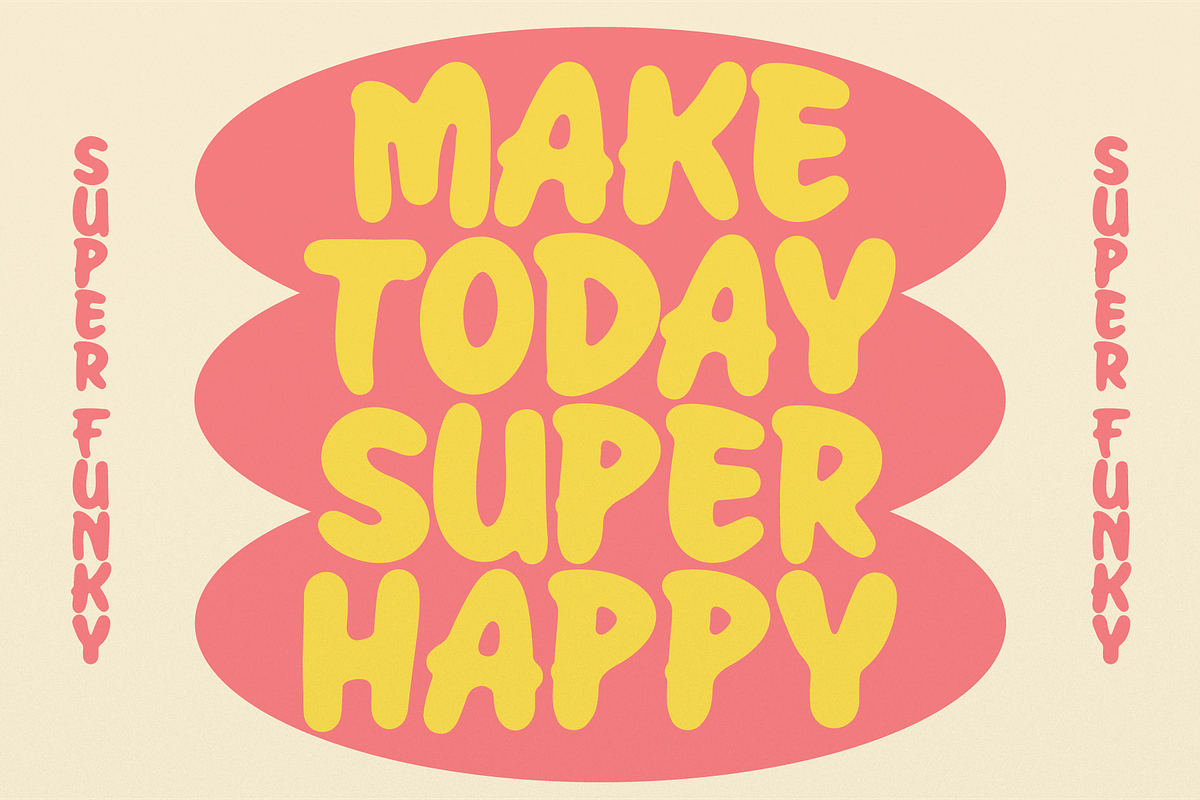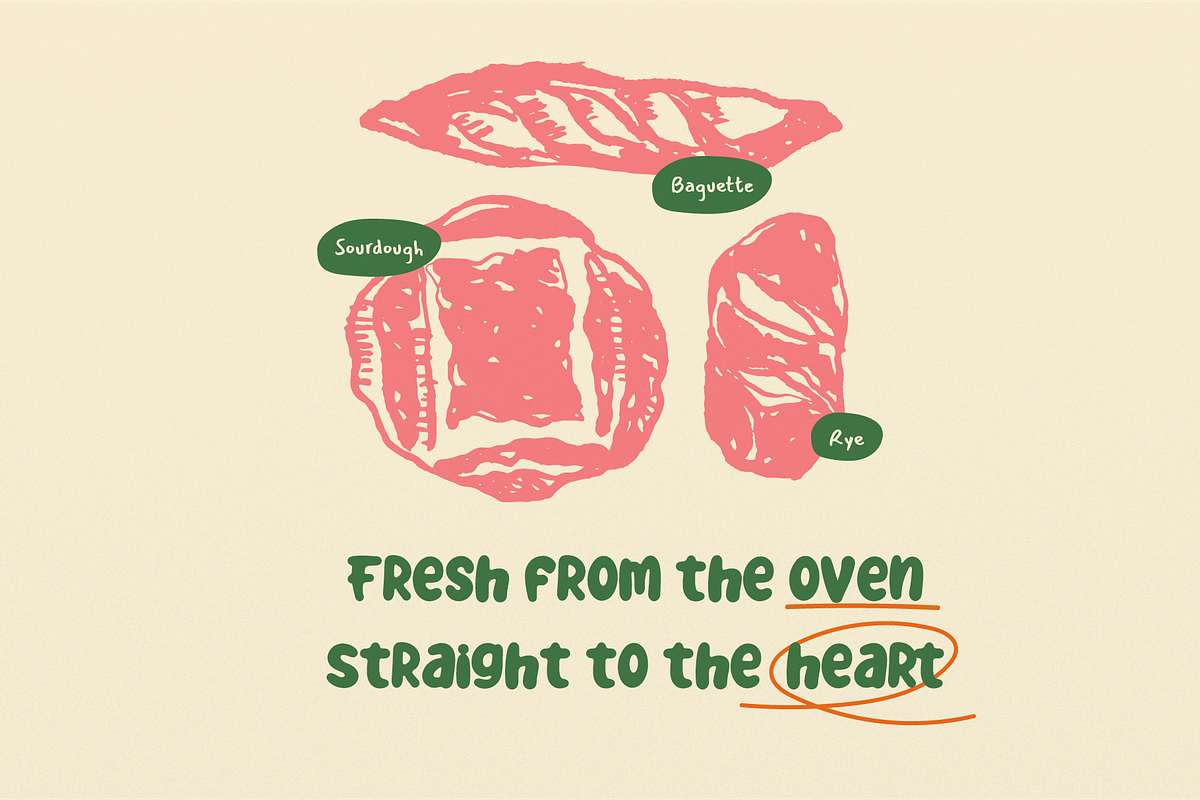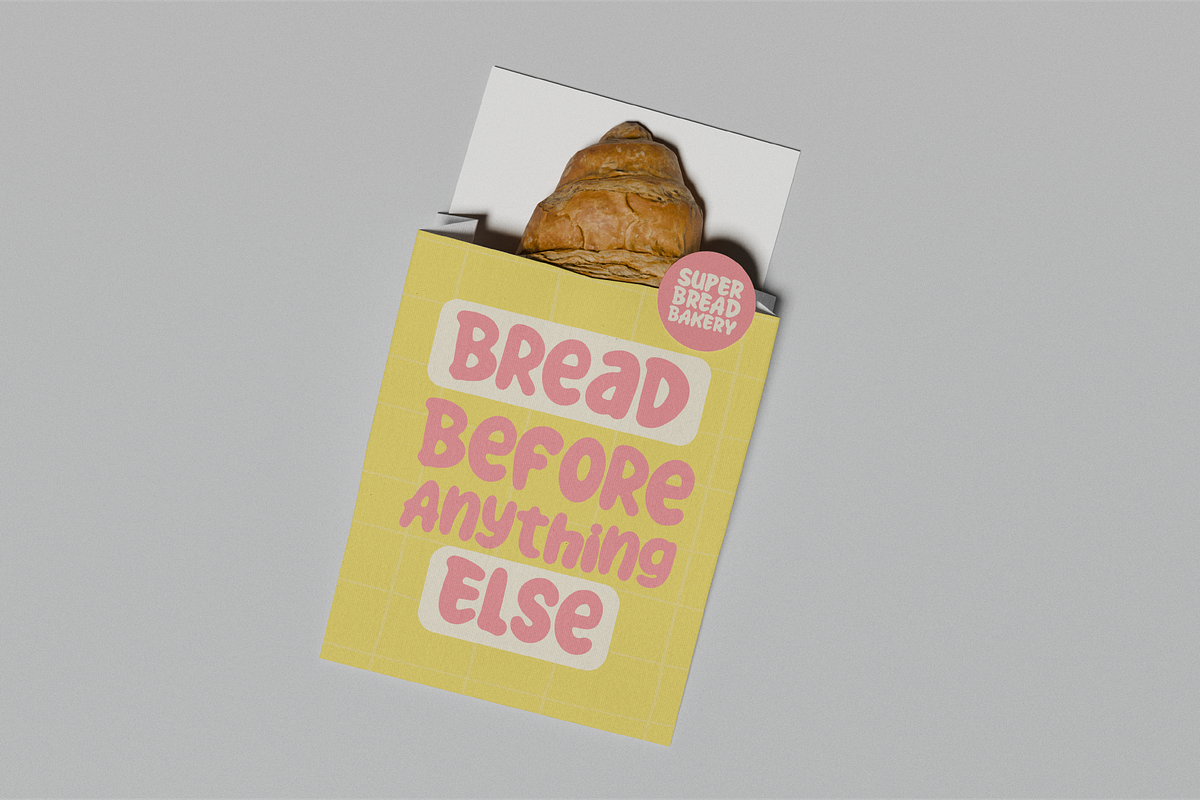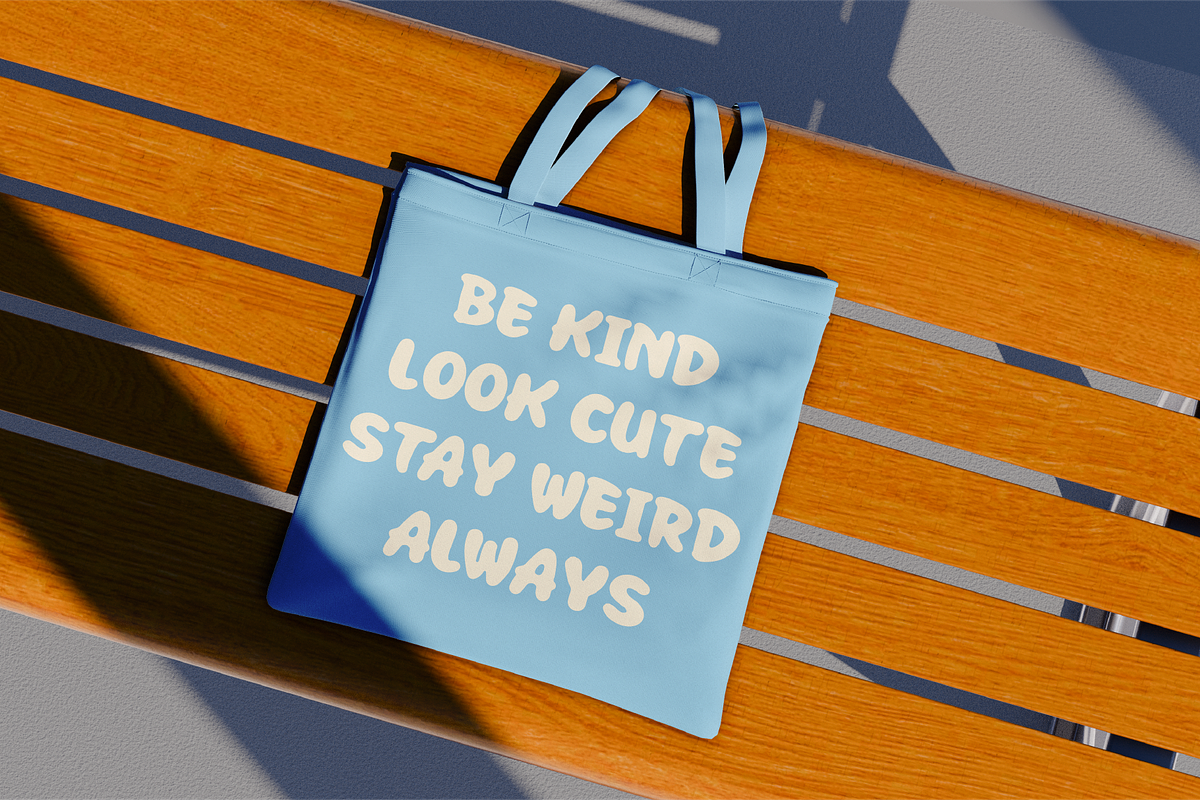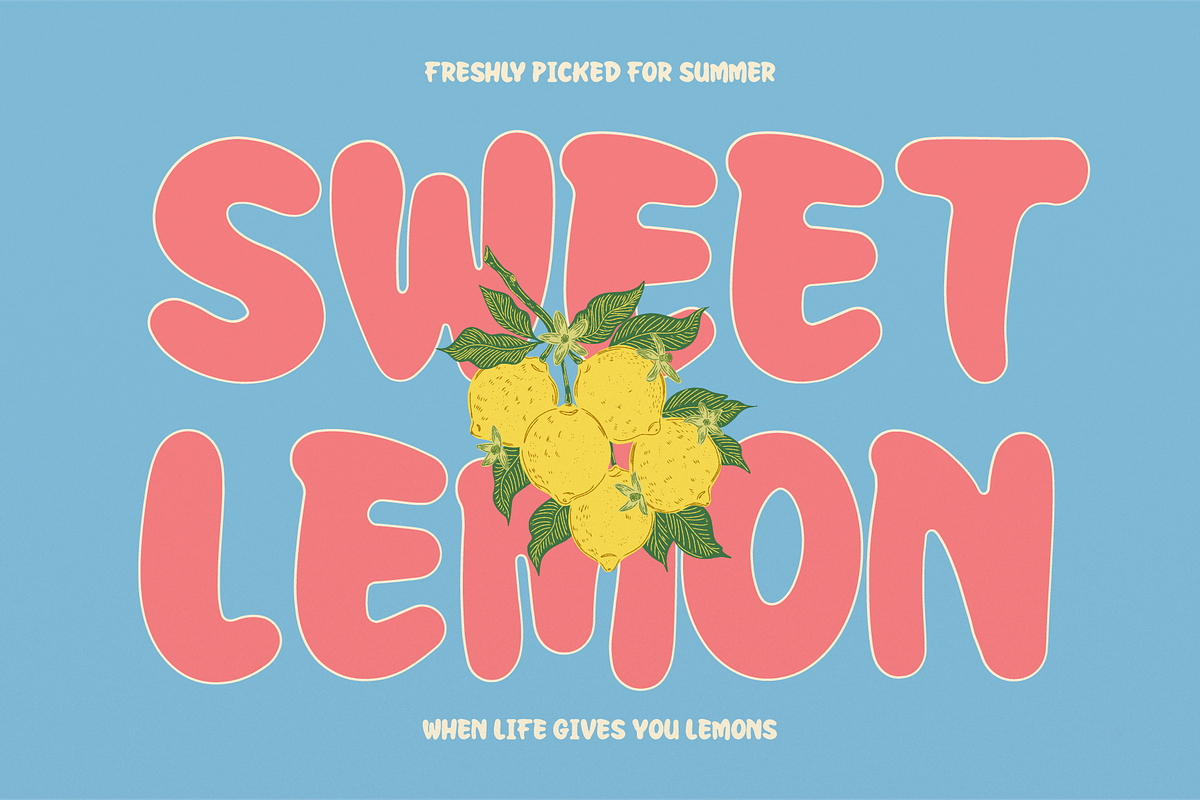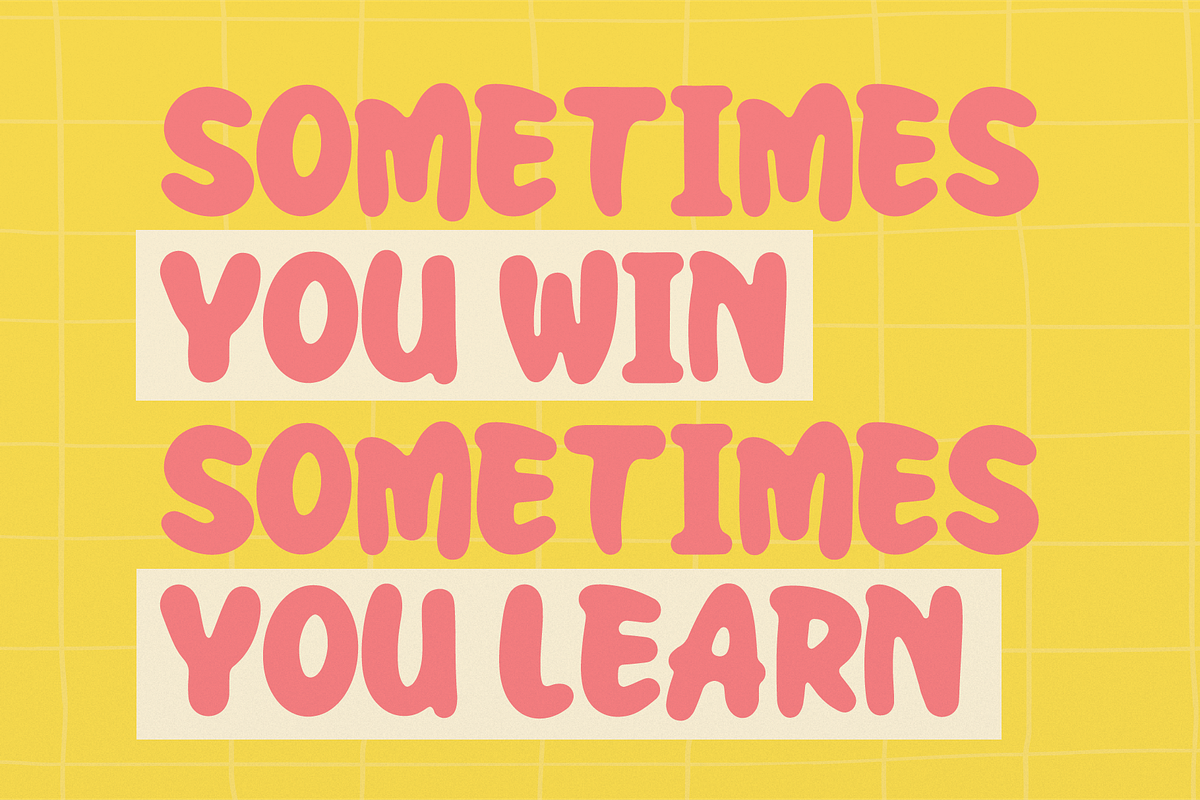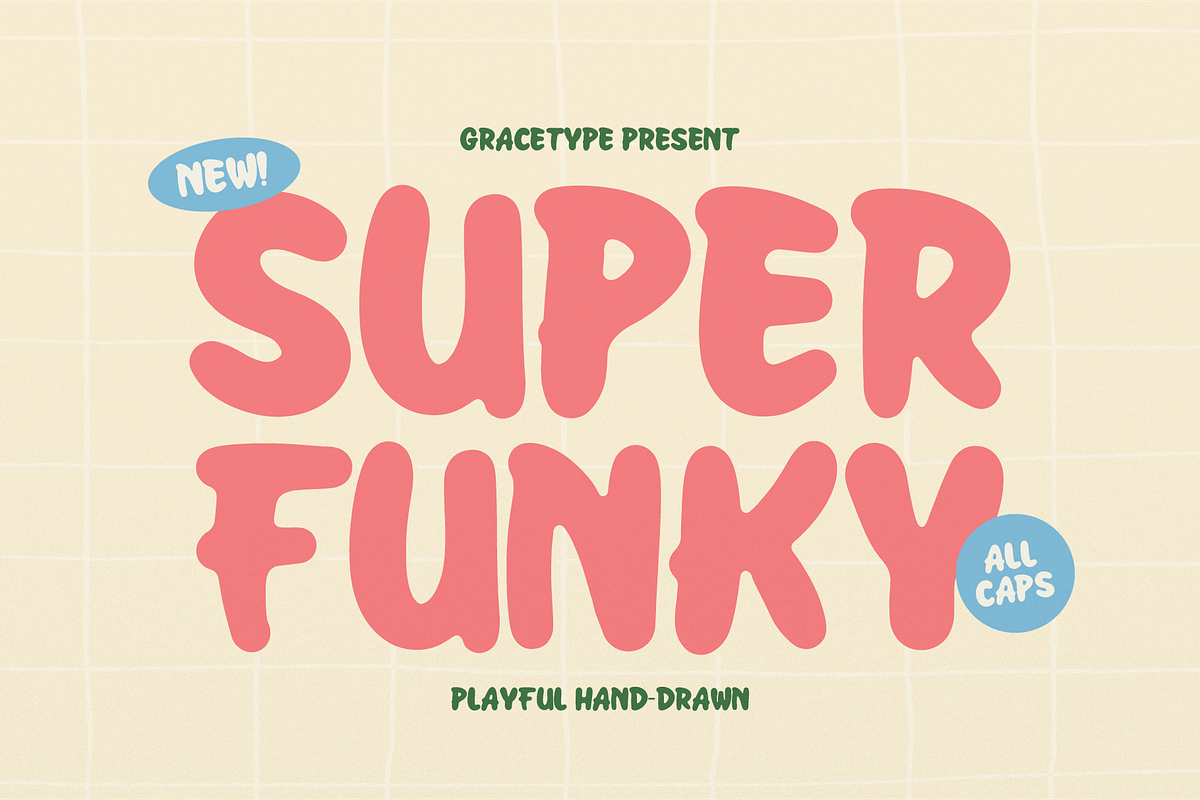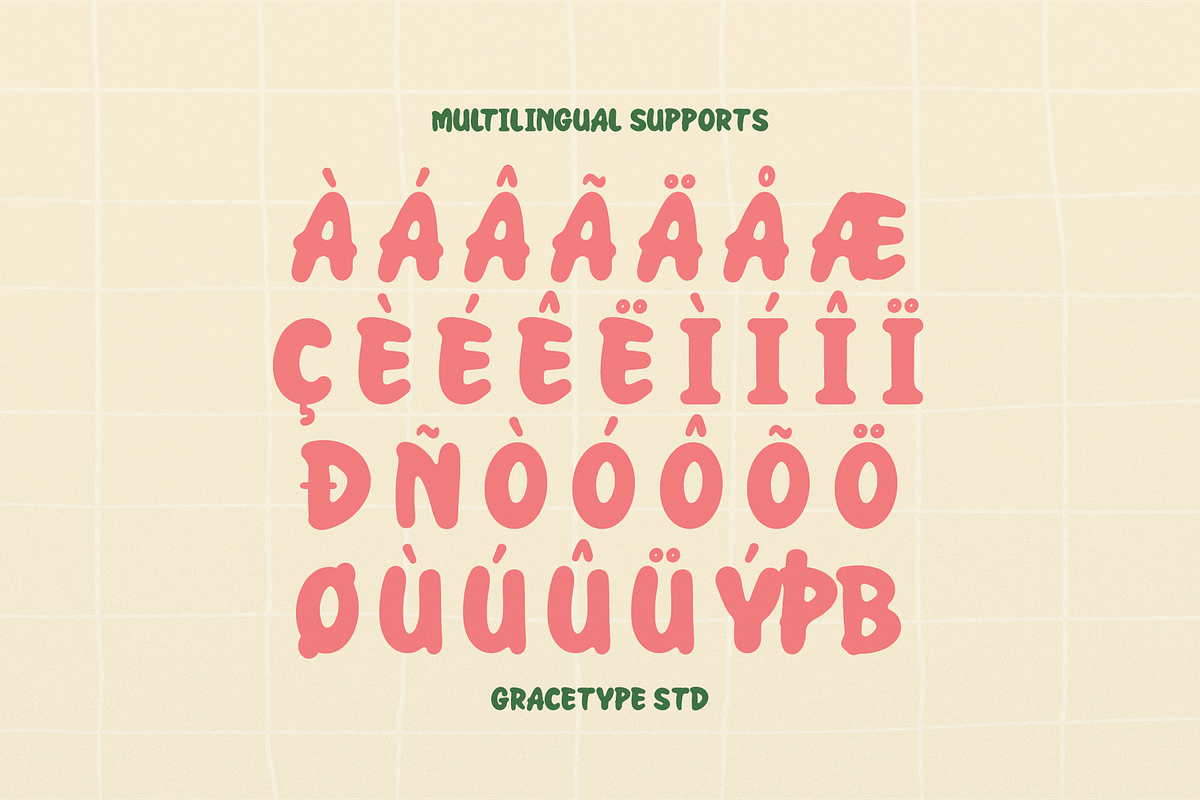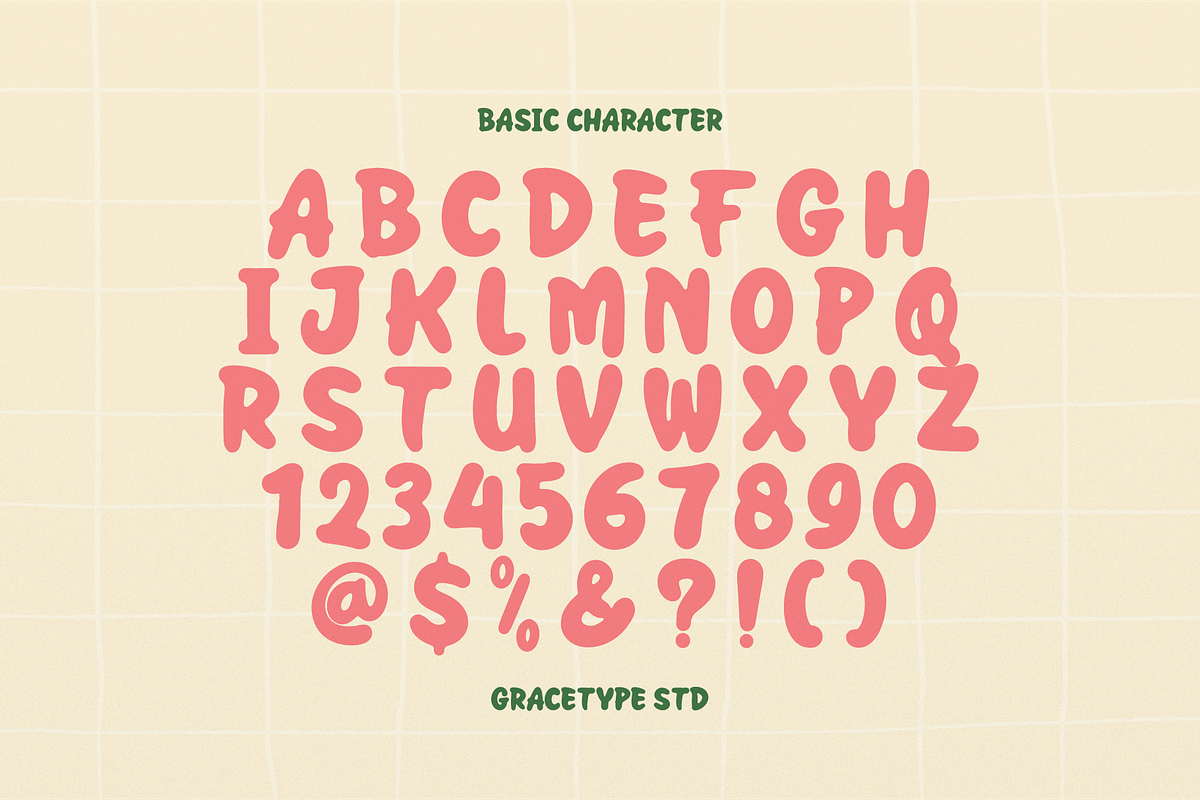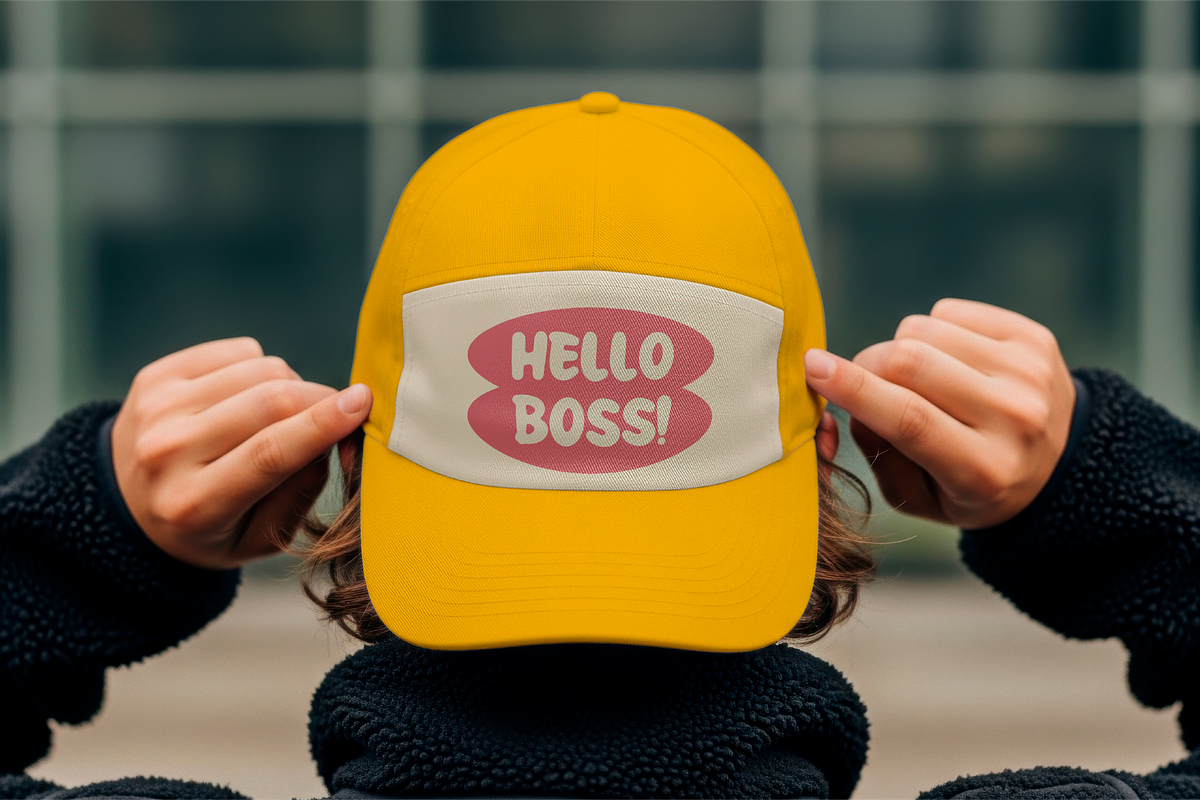
Super Funky | Playful Hand Drawn
Super Funky | Playful Hand Drawn, from Gracetypestudio, suitable for any projects such as: logos, branding projects, homeware designs, product packaging, mugs, quotes, posters, shopping bags, t-shirts, book covers, name card, invitation cards, greeting cards, label, photography, watermark, special events, and all your other lovely projects that need a Hand Drawn taste.
Alternate and Ligature
Fonts include multilingual support